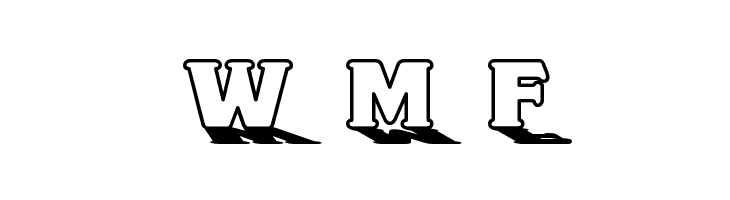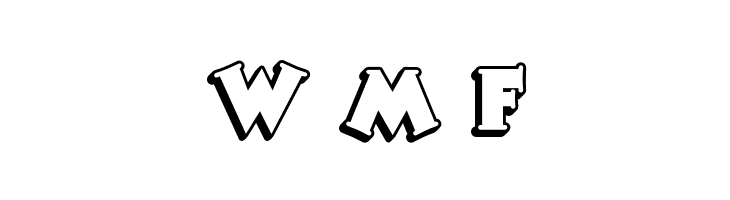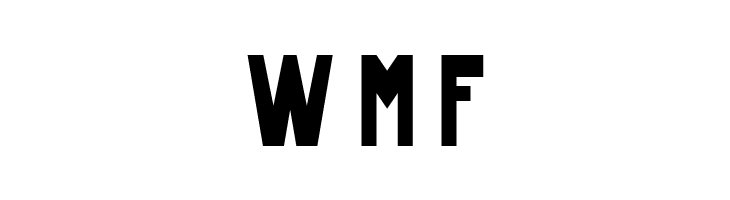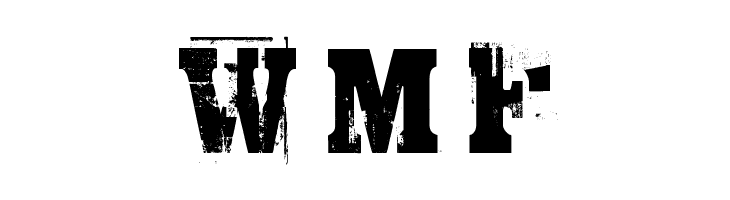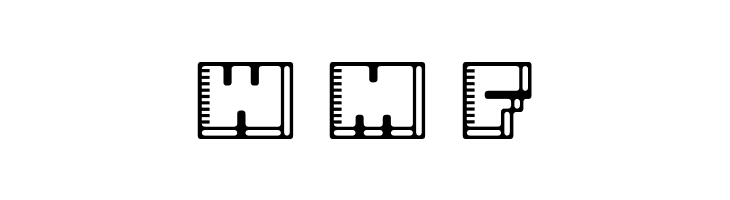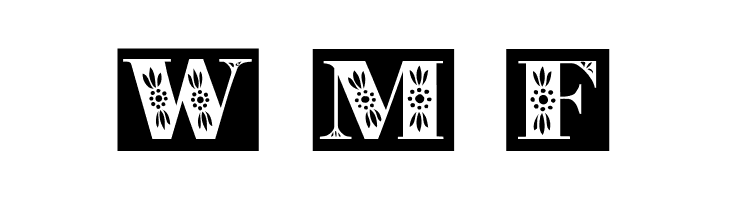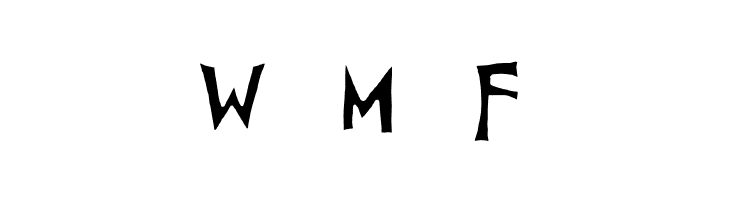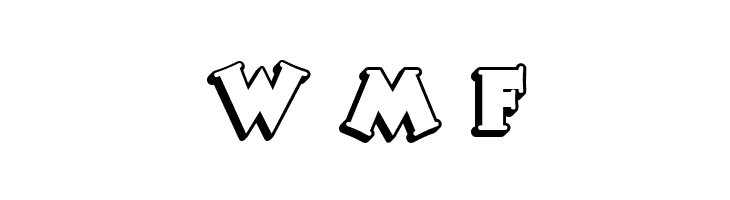
• TobyFont-Insidereduced
A bold, edgy font with sharp angles and a hand-drawn appearance.
• ToleCaps
An ornate, decorative font with intricate floral patterns in each letter.
• Tomipop__G
A playful, bold font with rounded edges and a cohesive style.
• Tooney Noodle NF
A bold, playful font with a 3D shadow effect and cartoonish style.
• TooneyNoodleNF
A playful, bold font with cartoonish strokes and strong outlines.
• Touhi Bold
A bold, blocky font with a 3D effect and retro digital style.
• Toyland NF
A bold, playful font with a 3D shadow effect, perfect for eye-catching designs.
• ToylandNF
A bold, playful font with a 3D shadow effect, ideal for eye-catching designs.
• Trading Post NF
A bold, geometric font with a modern and assertive style.
• TRASHED
A bold, distressed slab serif font with a grunge texture.